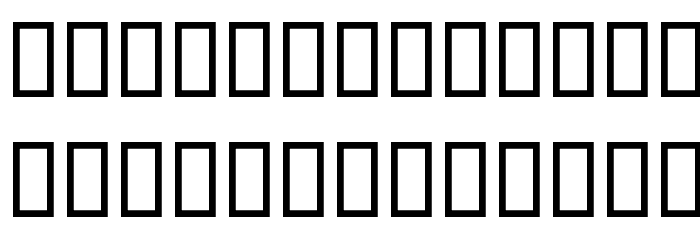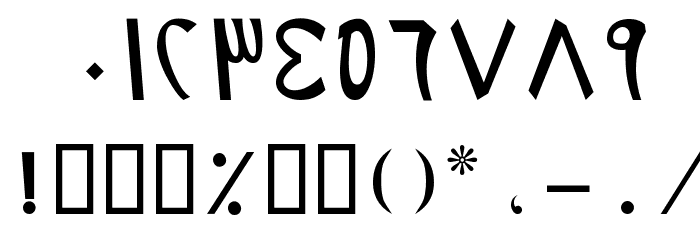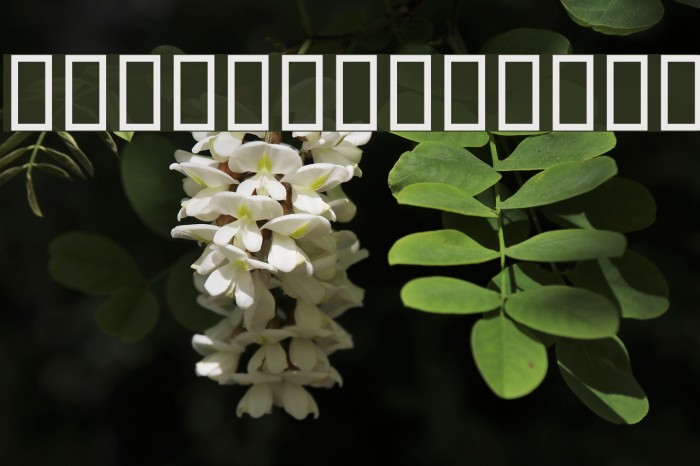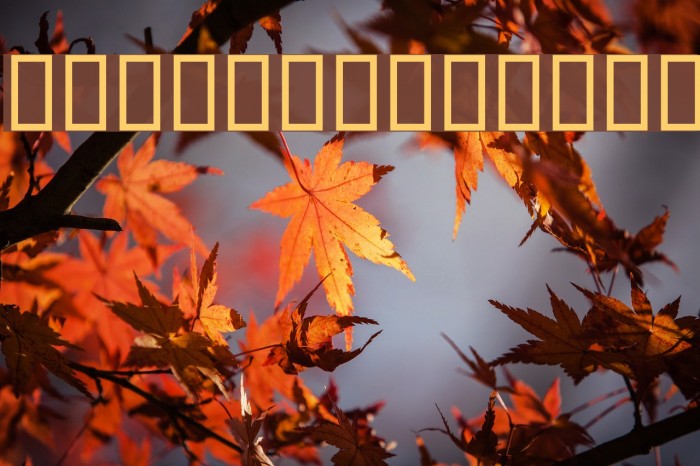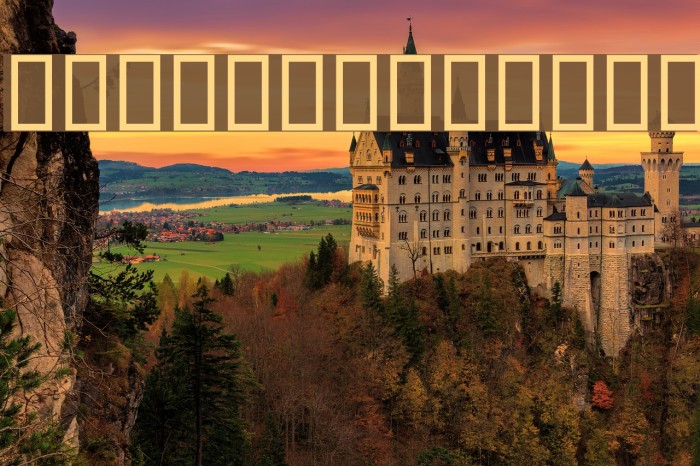
Destkhat Shang III Font
This font features a unique and artistic design with a distinct calligraphic influence. The characters are crafted with a combination of sharp angles and smooth curves, creating a dynamic and flowing appearance. The numerals are particularly stylized, with varying stroke widths that add to the overall aesthetic. The special characters maintain the same artistic flair, ensuring consistency throughout the font. This font is ideal for projects that require a touch of elegance and creativity, making it suitable for invitations, posters, and branding materials.
An artistic, calligraphic font with dynamic curves and angles.
- Proposed Projects: Ideal for invitations, posters, branding, and creative projects.
- Overall Style: Artistic, Calligraphic
- Use Case: Headlines, Decorative text, Branding